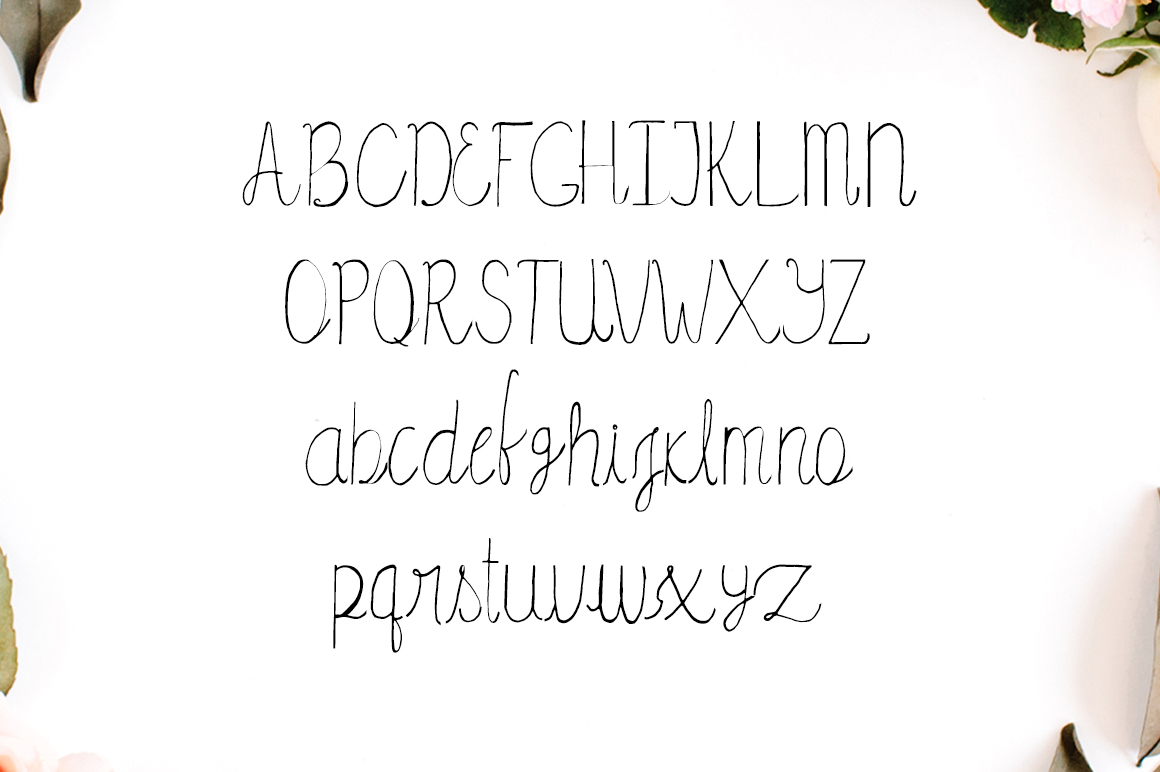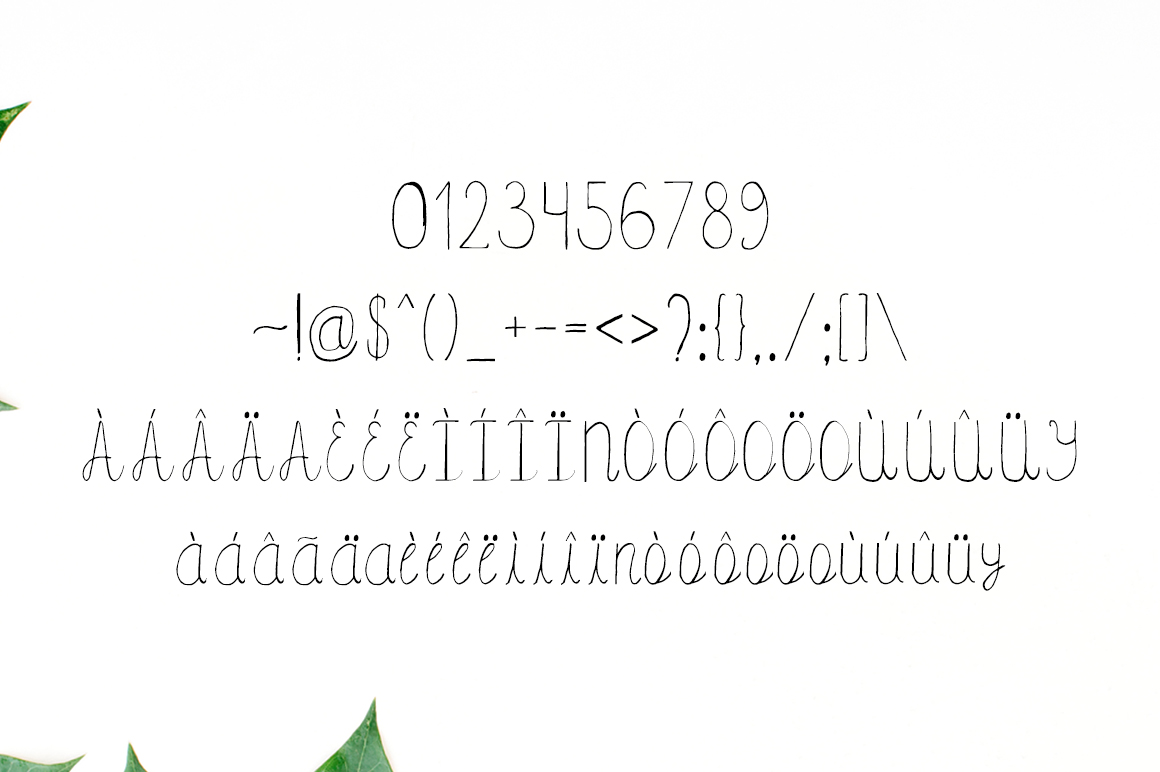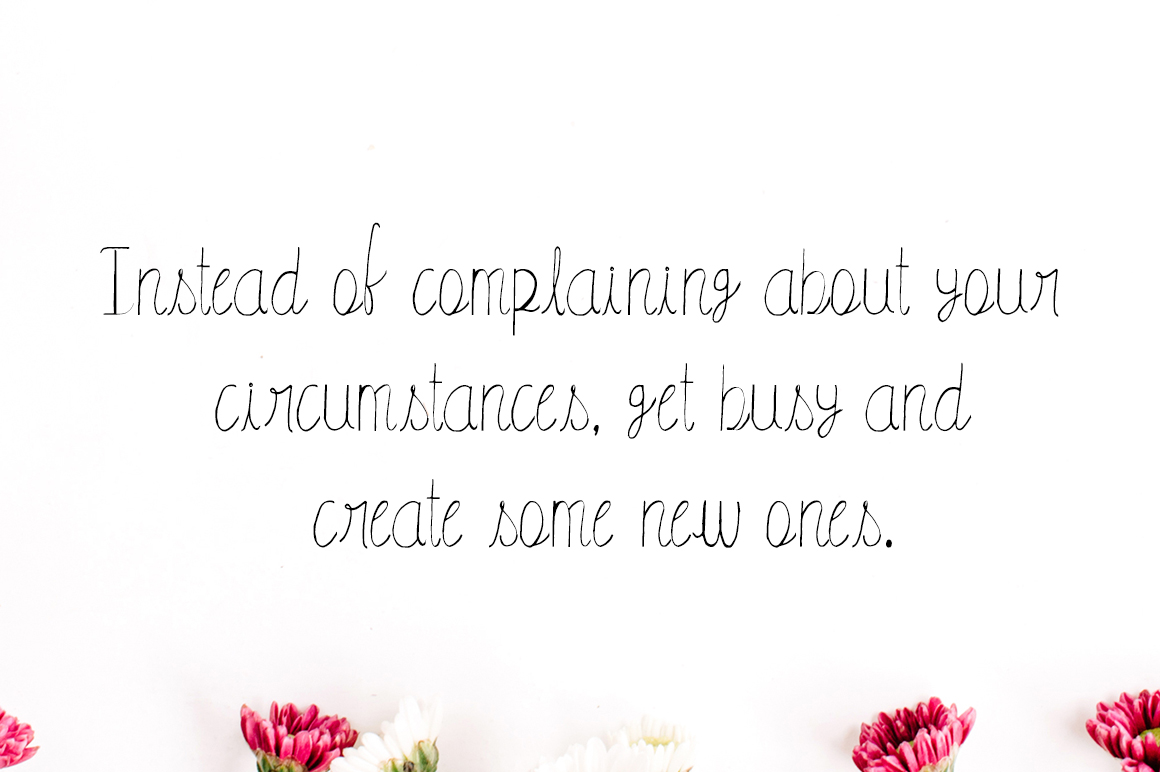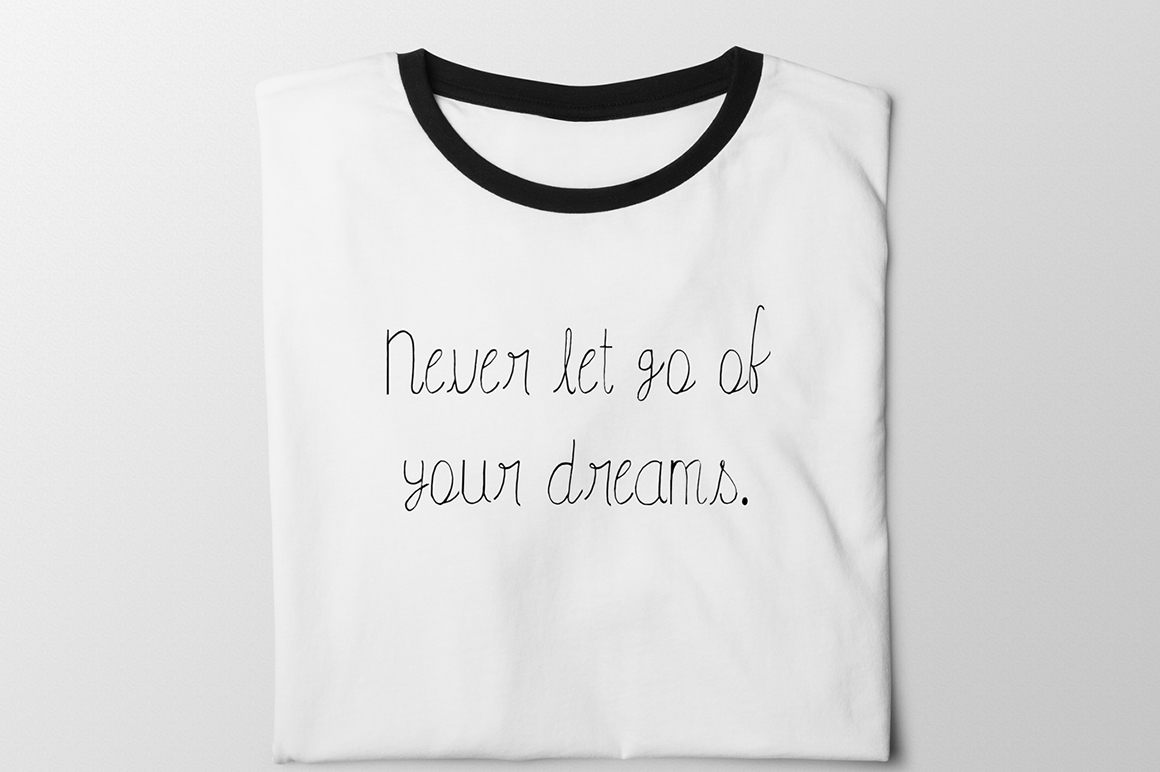
Amidala Font
About Amidala Font
Amidala is a cool handwritten script full of character and vibrancy. This font is a great choice for a handwritten look, and to soften any range of designs.